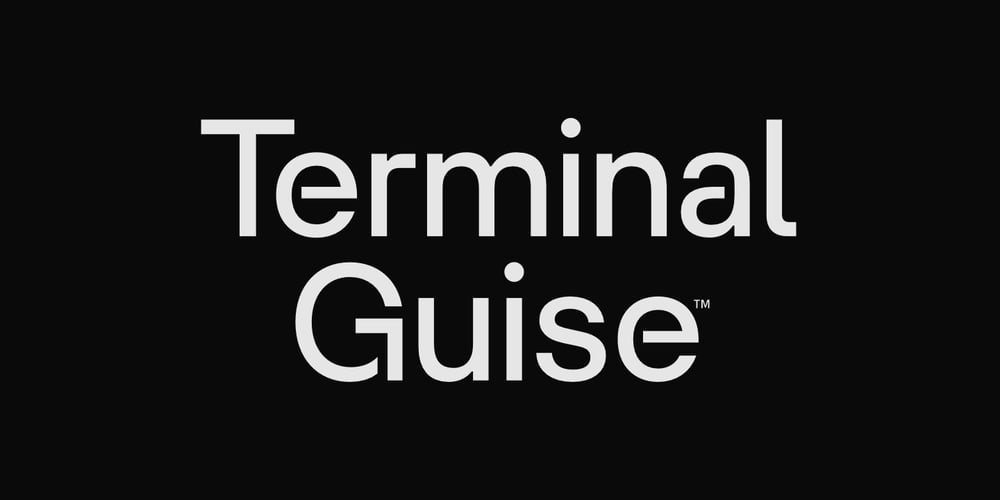
Terminal Guise
Terminal Guise font
Terminal Guise Font Family was designed by Alfredo Marco Pradil and published by Hanken Design Co.. Terminal Guise contains 8 styles and family package options. Terminal Guise is a display typeface with detached or uncompleted forms to create a graceful and stylistic termination.